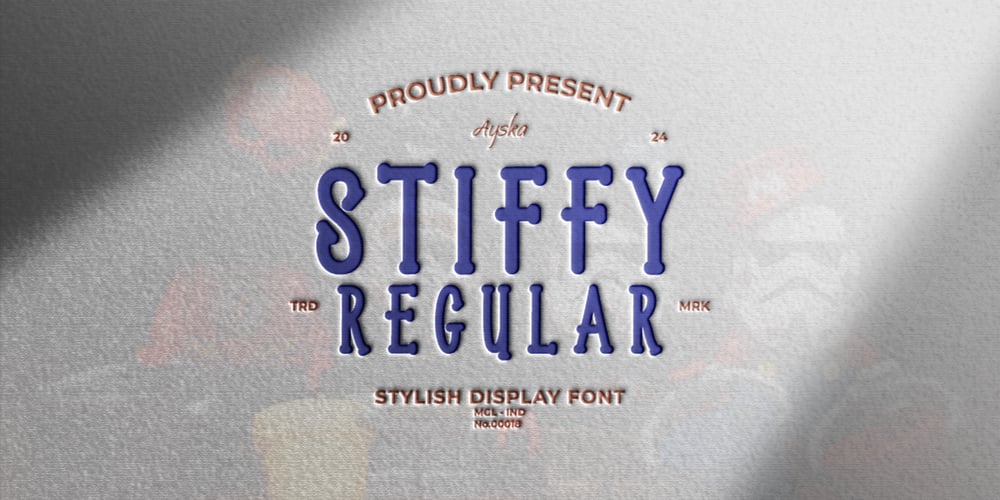
Stiffy
Stiffy font
Stiffy Font Family was designed by Dhoni Trihatmoko and published by Ayska. Stiffy contains 1 styles and family package options. Stiffy regular is a versatile handwritten font. With block and cursive style features, it is perfect for titles and quotes, legible and attractive for labels, luxurious for brands, and great for signatures. Some projects that are suitable for this font include quotes, menus, taglines, flyers / posters, invitations, greeting cards, posters, business cards, clothing, letters, stationery and many others. Comes with a full uppercase, lowercase, numbers, punctuation and with extensive language support, it’s going to be a very usable addition to your project.